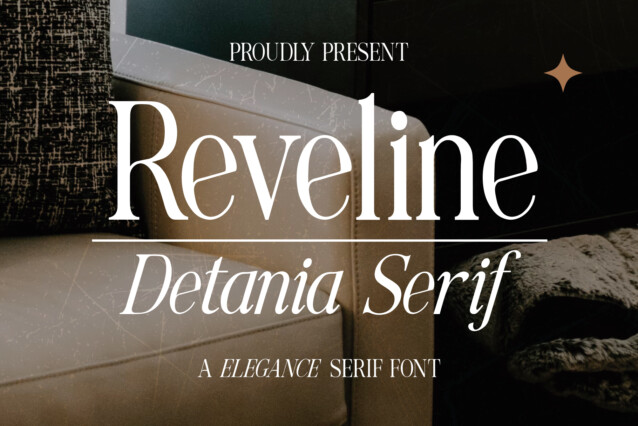
Reveline Detenia Font
Reveline Detenia Font – An exquisite Elegant Serif font meticulously crafted to infuse your projects with timeless sophistication. This font seamlessly merges traditional elegance with a modern twist, offering a refined touch to your designs.
Key Features:
• Ligatures
• Alternatives
• Multilingual Support
• Uppercase & Lowercase
• Punctuation
REVELINE DETANIA is perfect for:
• Elegant wedding invitations, radiating sophistication and charm.
• Luxurious branding projects in pursuit of a refined aesthetic.
• Editorial designs seeking a timeless and classic appeal.
• Stylish product packaging that commands attention.
• Inspirational quotes and social media graphics adorned with an elegant touch.
Elevate your designs with REVELINE DETANIA and let its graceful serifs breathe life into your creative vision. Experience the harmonious blend of tradition and modernity.